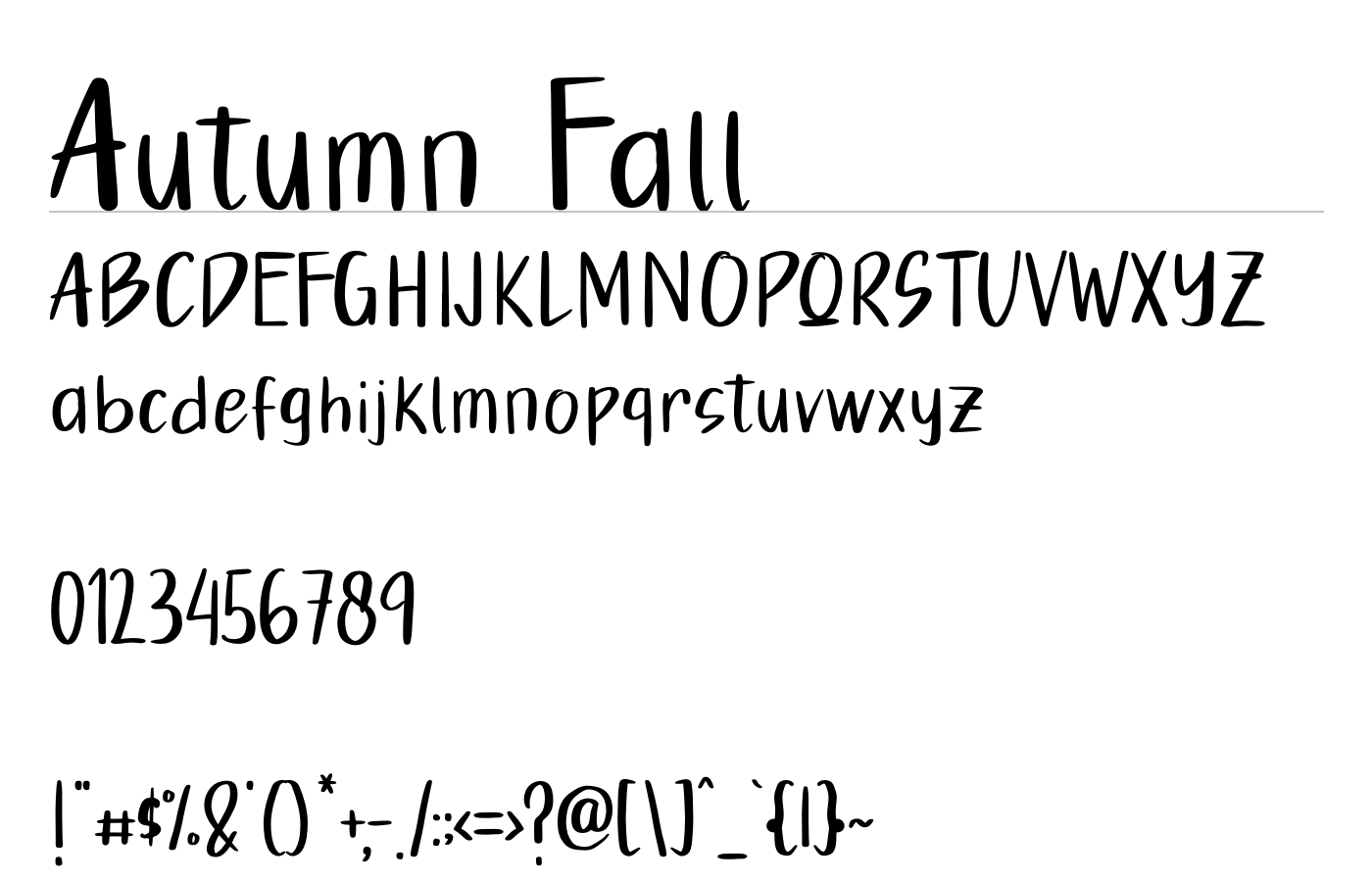
Autumn Fall is a casual, handwritten sans serif font featuring tall, narrow letterforms with a playful and friendly vibe. Its slightly irregular strokes and moderate x-height give it a natural, approachable feel, making it ideal for informal branding, invitations, and creative projects that want to convey warmth and personality. This font works best in headlines or short texts where a personal, hand-crafted touch is desired.
Autumn Fall Font
About Autumn Fall Font
| Designer | Muhammad Hisyam Rivai |